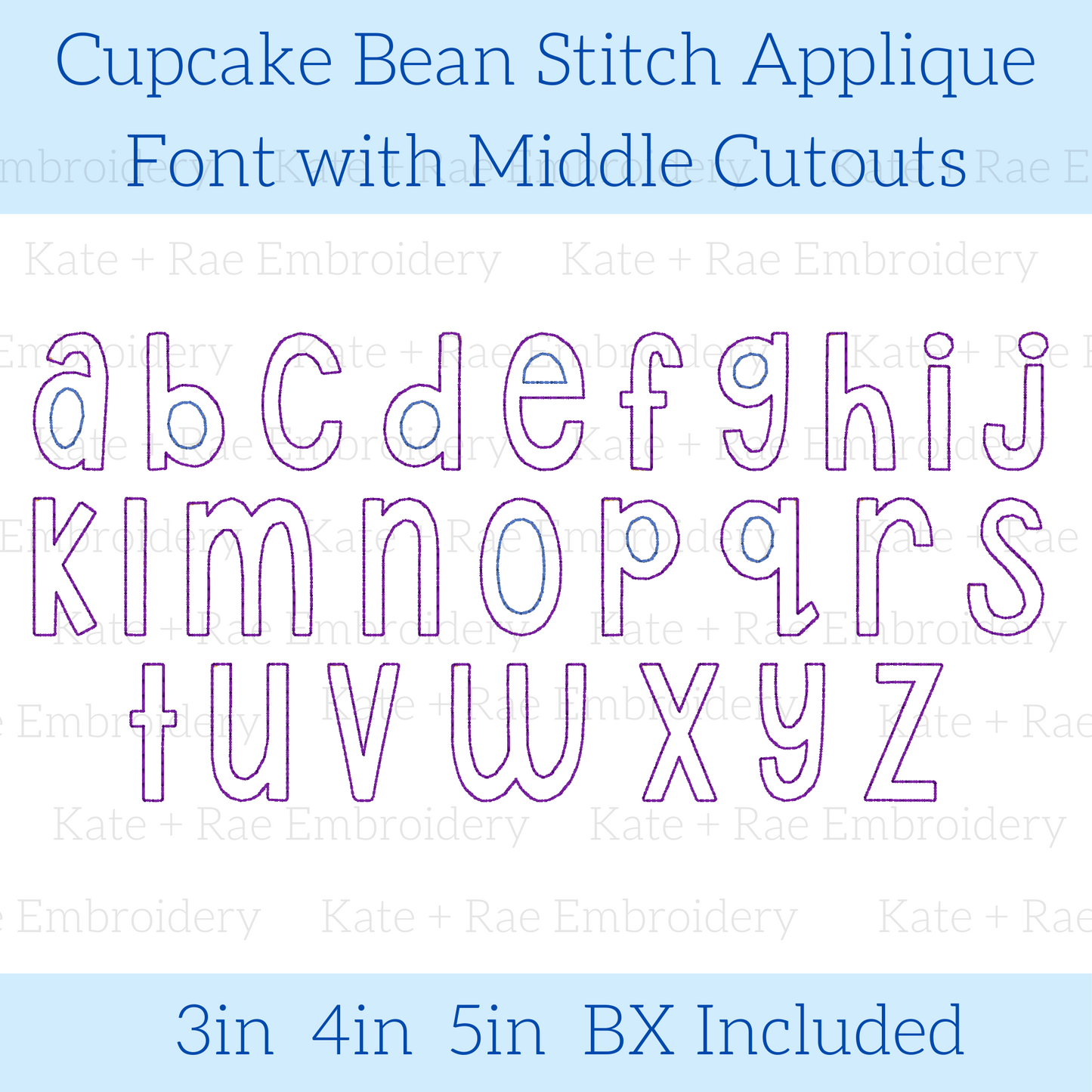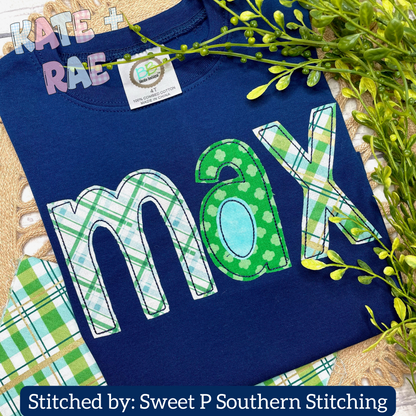
Cupcake Bean Stitch Applique Font with Middle Cutouts
Meet Cupcake, a sweet bean stitch applique font with fun middle cutouts! Stitch names on birthday shirts, kids' outfits, and everyday favorites.